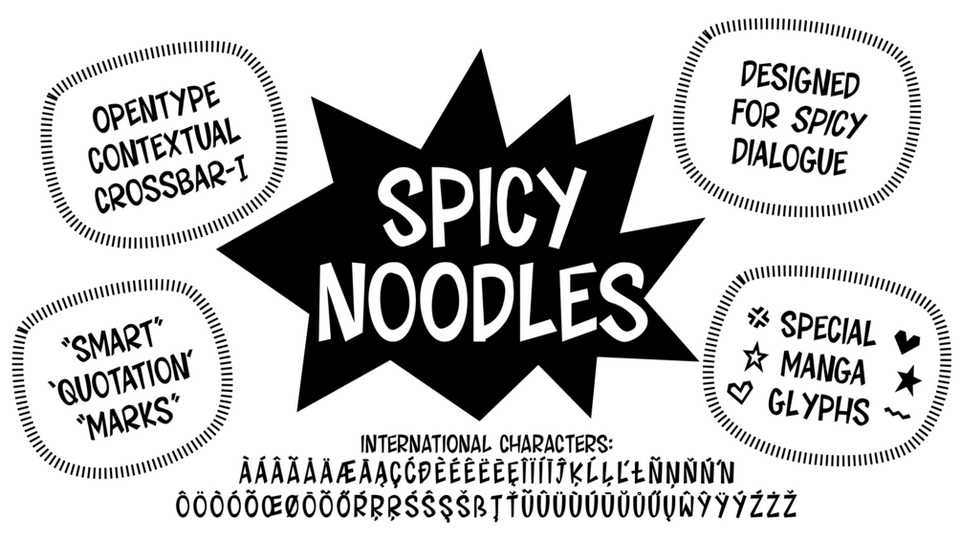
Download Spicy Noodles typeface, a comic display font family in two styles designed for spicy dialogue. Spicy Noodles has a wide range of glyphs for manga lettering, and it would be great in any comic book.
Designer: Sara Linsley